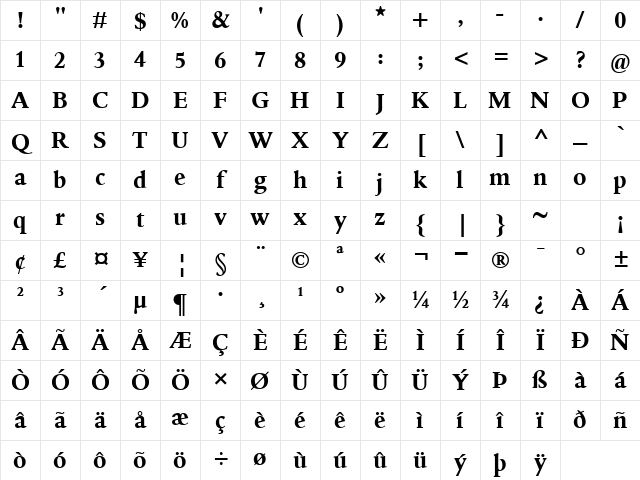
Goodchild Bold
Goodchild Family
Design Context for Goodchild
Goodchild has an approachable, lighthearted character - its loose, expressive forms are well-suited to children's content, casual branding, and fun-first design.
Font Pairing: Pairs well with a rounded or humanist sans for body copy, maintaining the friendly tone without relying on Goodchild to carry extended reading.
Pro Tip: Use Goodchild at larger display sizes where its expressive character can land. Pair with a clean, simple sans for body copy to maintain readability.